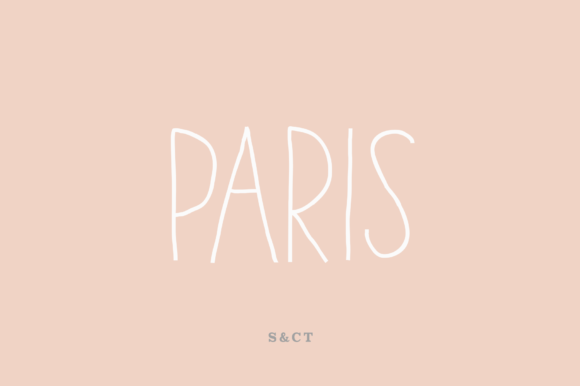
Introducing Paris Font: Unleash the Parisian Chic in Your Designs
In the realm of digital aesthetics, typography stands as a cornerstone, shaping the visual identity of your creations. With Paris Font, discover a masterpiece that breathes life into your words, transforming them into captivating expressions of art. This avant-gardist handwritten font, crafted in the heart of Paris, embodies the essence of elegance and sophistication. Its all-caps thin structure, adorned with extended glyphs that embrace a multitude of languages, elevates your designs to new heights of visual allure.
Beyond its technical prowess, Paris Font possesses a distinctive charm that sets it apart from the ordinary. Its captivating Art Deco feel evokes a sense of nostalgia, a whisper of the past that harmonizes seamlessly with the demands of modern design. Embrace the allure of Paris Font and watch as your creations blossom into captivating visual symphonies.
Immerse yourself in the world of Paris Font and discover a treasure trove of creative possibilities. Whether you're crafting captivating YouTube titles, designing logos that exude timeless appeal, or seeking a touch of handwritten elegance in your branding, this font is your steadfast companion. Its versatility knows no bounds, effortlessly adapting to a myriad of design aesthetics, from vintage-inspired projects to contemporary masterpieces.
With Paris Font as your creative ally, you'll effortlessly elevate your designs to newfound heights of sophistication. Its ability to capture attention and leave a lasting impression is undeniable, making it the perfect choice for designers seeking to make a statement. Unleash your creativity and embark on a journey of visual storytelling with Paris Font, where every letter dances across the screen with grace and poise.